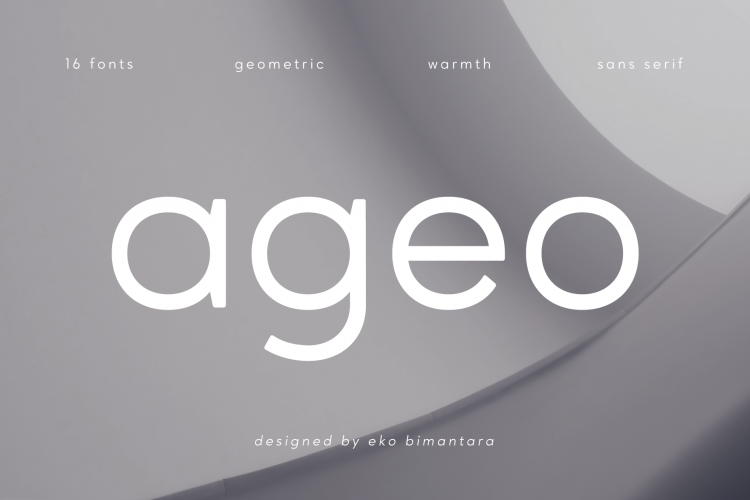
Ageo Geometric Sans Font Family
This is a classic style sans serif typeface that has been modernised with its unique curves and cut-ins making it one of the most memorable caps fonts on the market. Introducing Ageo Sans Serif Font Family! Ageo is geometric sans serif font family. It’s contain 8 weight from Thin to Heavy with each matching Italics. It’s shown a clean, minimalist, elegant, warmth, quirky, yet still purposed to be versatile and easy to read. Fit for various design or creative project.